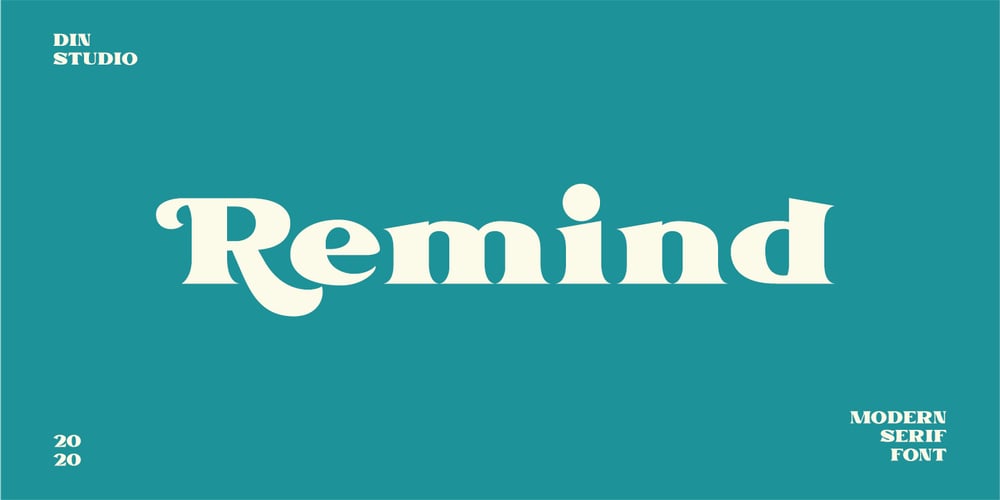
Remind
Remind font
Remind Font Family was designed by Donis Miftahudin and published by Din Studio. Remind contains 1 styles and family package options. Introducing Remind Font. Remind is a modern serif font. Create from our talented font designer. The design of typeface will make your design more beautiful and inspiring. This font will suitable for any project, like branding, print template, logo and etc.Features : PUA encoded Stylistics Set Numerals and Punctuation (OpenType Standard) Full Support Thanks for visiting and purchasing my font!